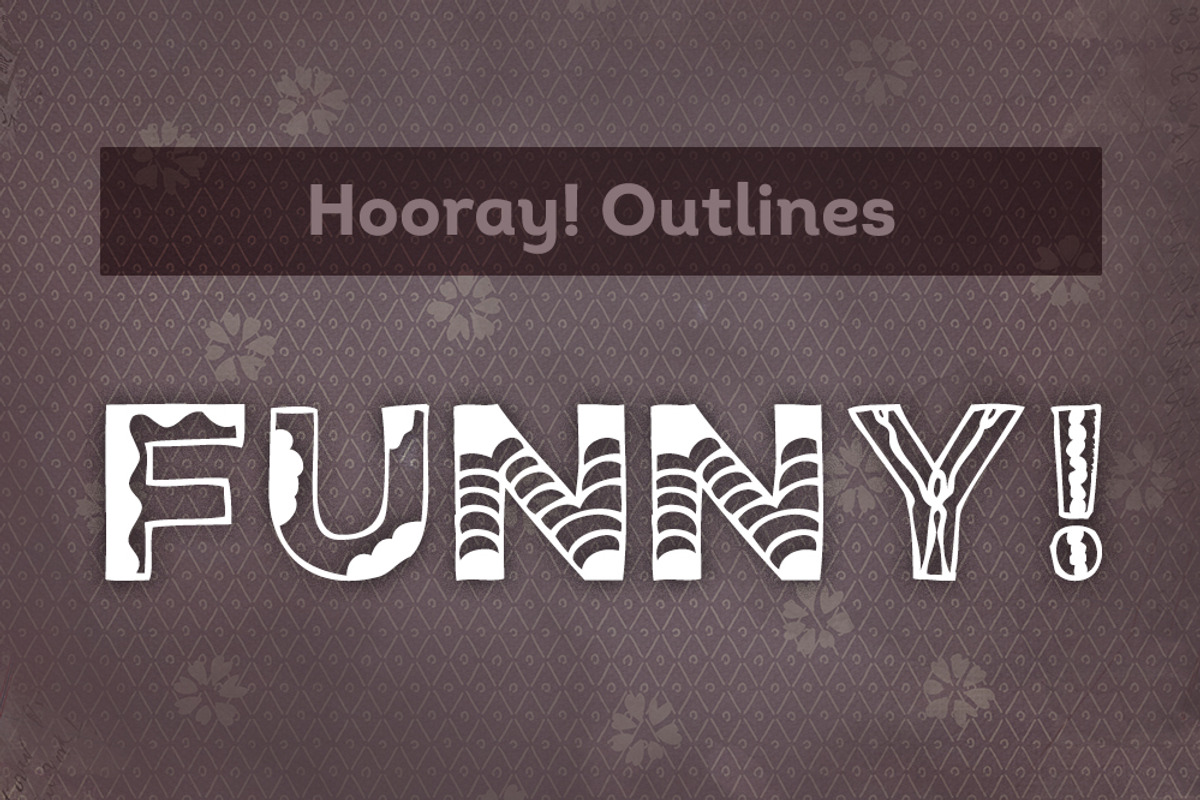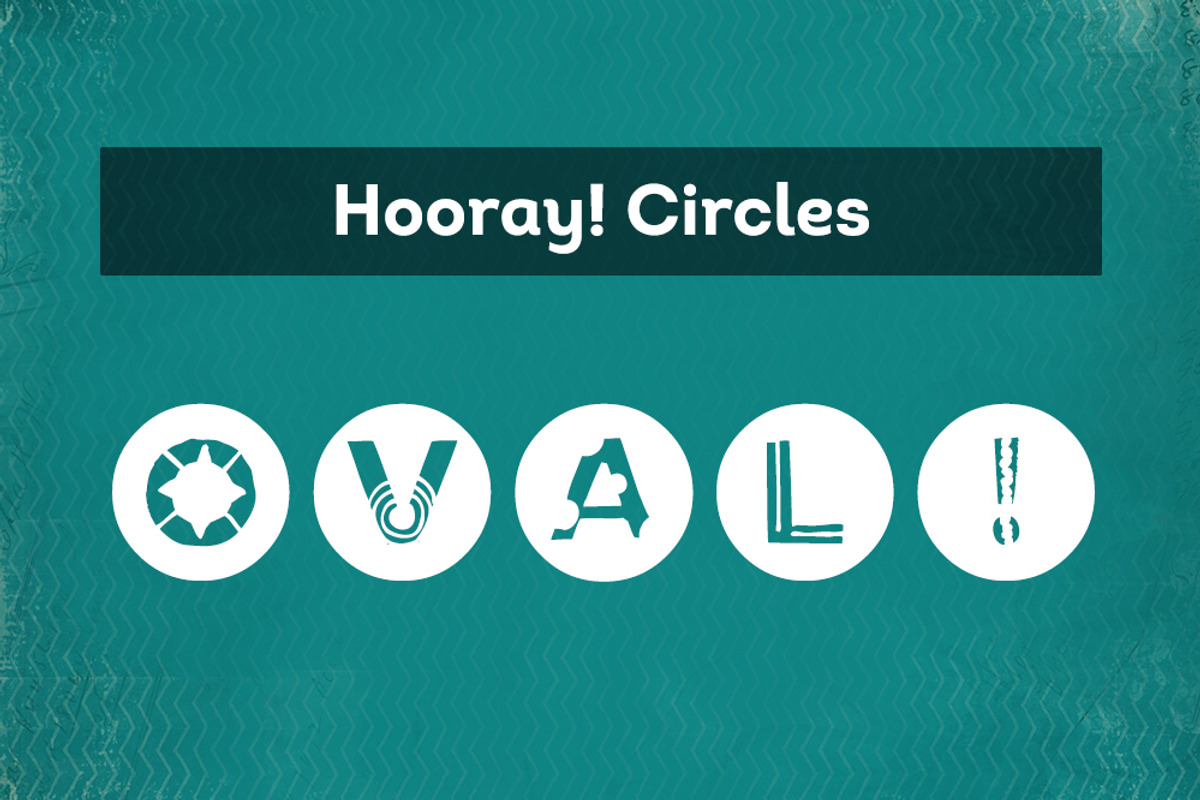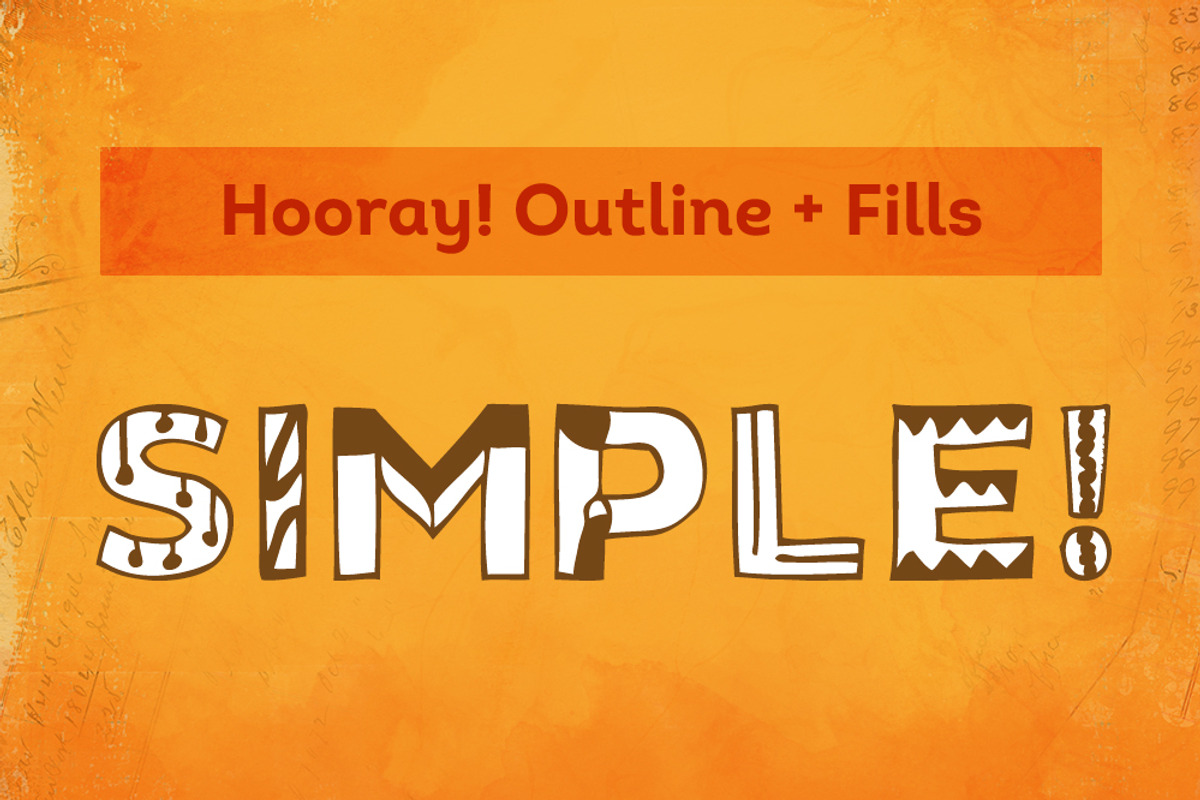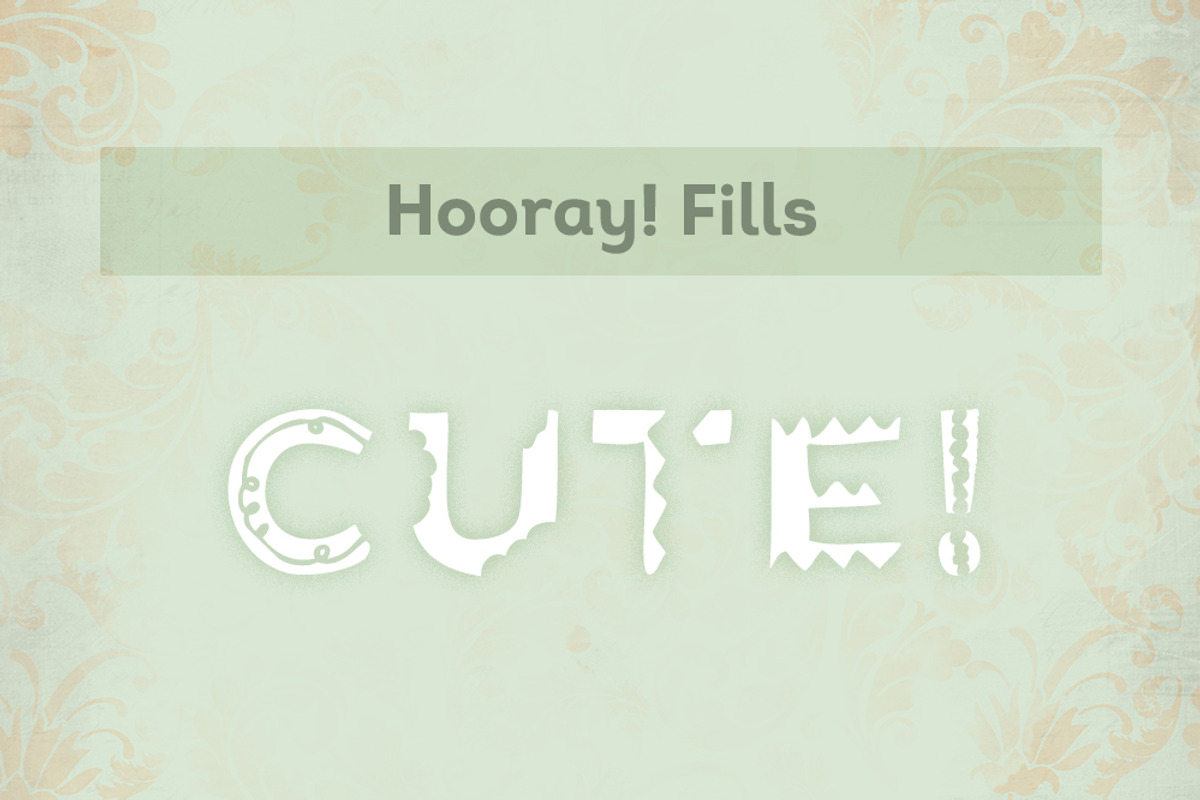
Hooray! Hand-drawn Fonts
Hooray! Hand-drawn Fonts by Frisk Shop is a font selected for branding, posters, packaging, typography.
- 'Hooray!' Font System contains three fonts inside: • 'Hooray!
- Hooray! circles Regular
- Hooray! Fills Regular
- Hooray! Outlines Regular
Why Hooray! Hand-drawn Fonts is worth a look
Hooray! Hand-drawn Fonts by Frisk Shop fits naturally into Branding, posters, packaging, typography.